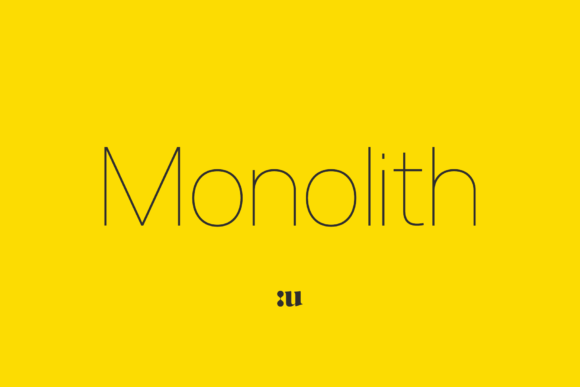
Welcome to the realm of Monolith Font, a sans serif masterpiece that revolutionizes digital communication with its avant-garde style. Gaze upon its clean lines and crisp edges, embodying the essence of modern elegance. Allow Monolith's distinct charm to transform your designs into striking expressions of creativity.
Monolith is not just a font; it's an artistic force that lends a touch of sophistication to every project it graces. Its seamless integration with UI design elements makes it the perfect choice for crafting user interfaces that captivate and engage. Unleash your imagination and watch as Monolith breathes life into your digital creations, taking them from ordinary to extraordinary.
Let Monolith be your guide as you navigate the world of digital aesthetics. Immerse yourself in its meticulously crafted letterforms, each stroke infused with intention and personality. It's a font that speaks volumes, delivering messages with clarity and impact. Whether you're crafting logos, websites, apps, or any other digital medium, Monolith will elevate your designs to new heights of visual appeal.
Embrace the power of Monolith and unlock new possibilities for your digital ventures. Its modern, clean aesthetic resonates with audiences, leaving a lasting impression that sets you apart from the competition. Monolith is more than just a font; it's a statement of style, a testament to your discerning taste and attention to detail.